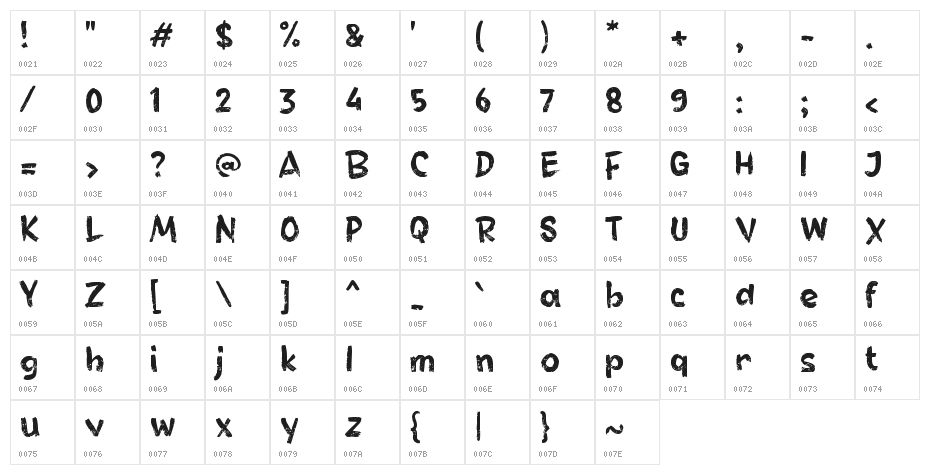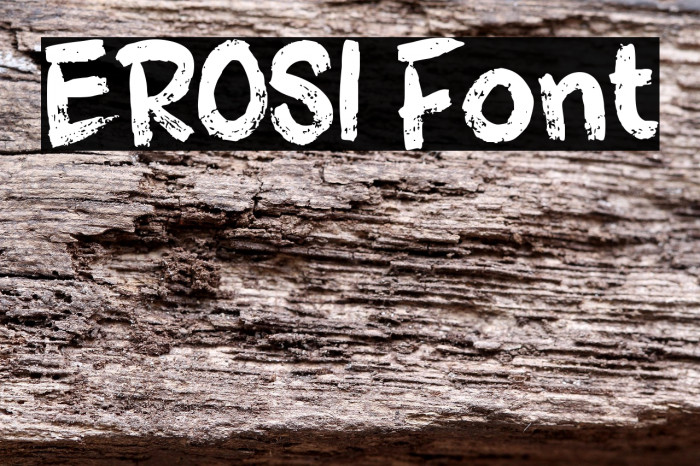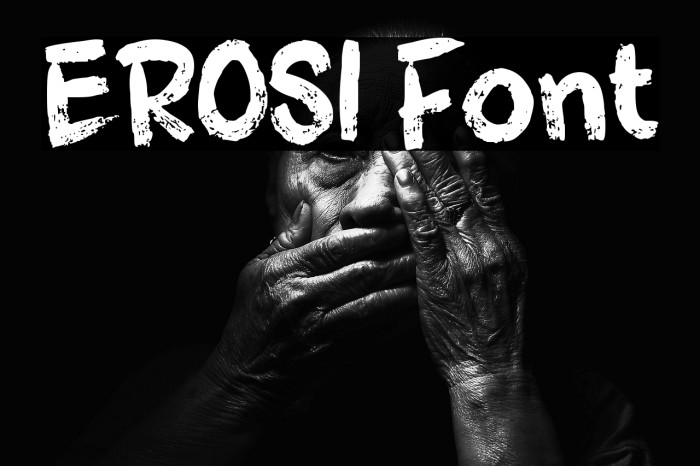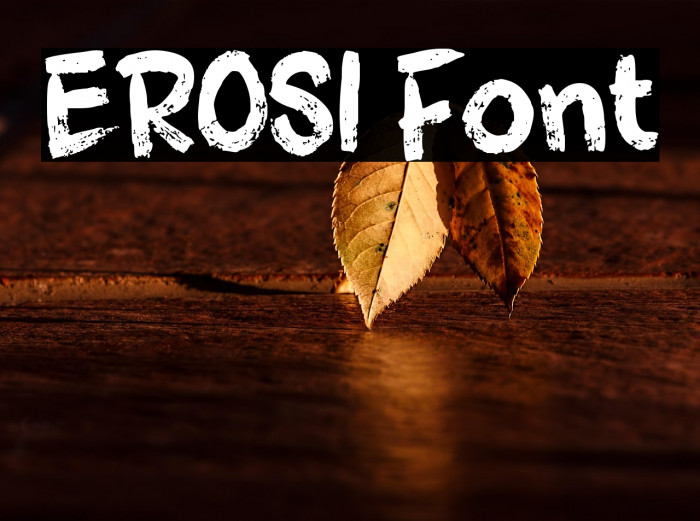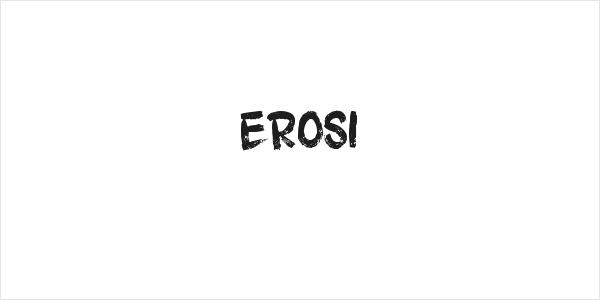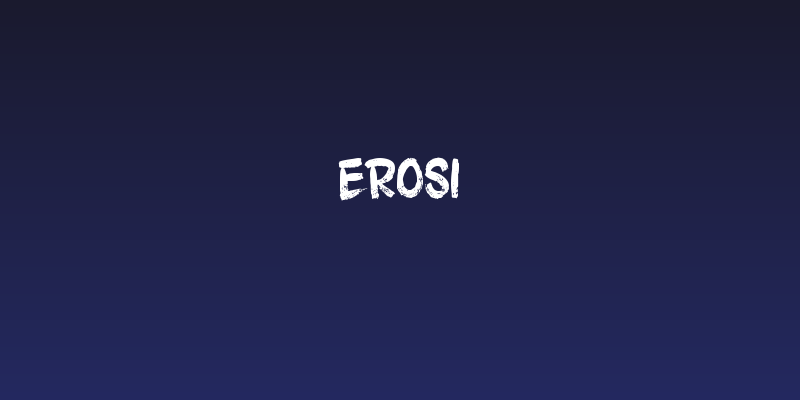
EROSI Font
EROSI Description
This font features a bold, distressed style with a textured appearance that gives it a rugged, hand-drawn look. The characters are irregular and have a rough, almost grunge-like texture, which adds a sense of dynamism and energy. The uppercase and lowercase letters maintain a consistent style, with thick strokes and uneven edges. Numbers and special characters follow the same design, ensuring a cohesive look across all elements. The font's unique style makes it stand out, perfect for projects that require a bold and edgy aesthetic.
| Proposed Projects | Ideal for posters, album covers, branding for edgy products, or any design needing a bold statement. |